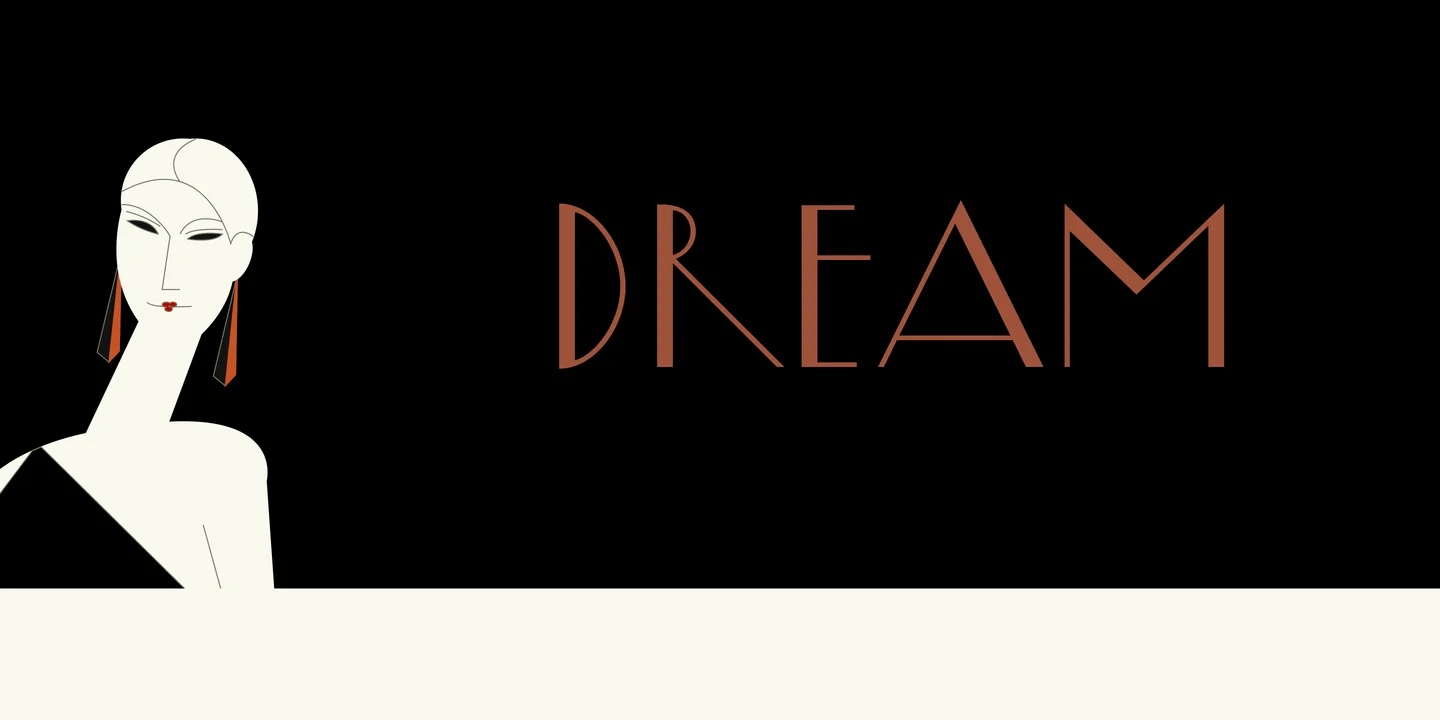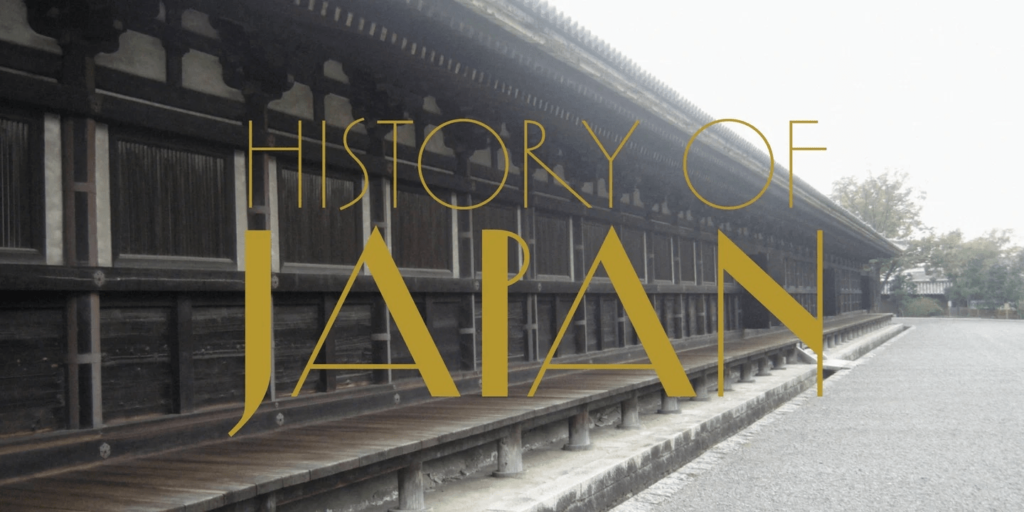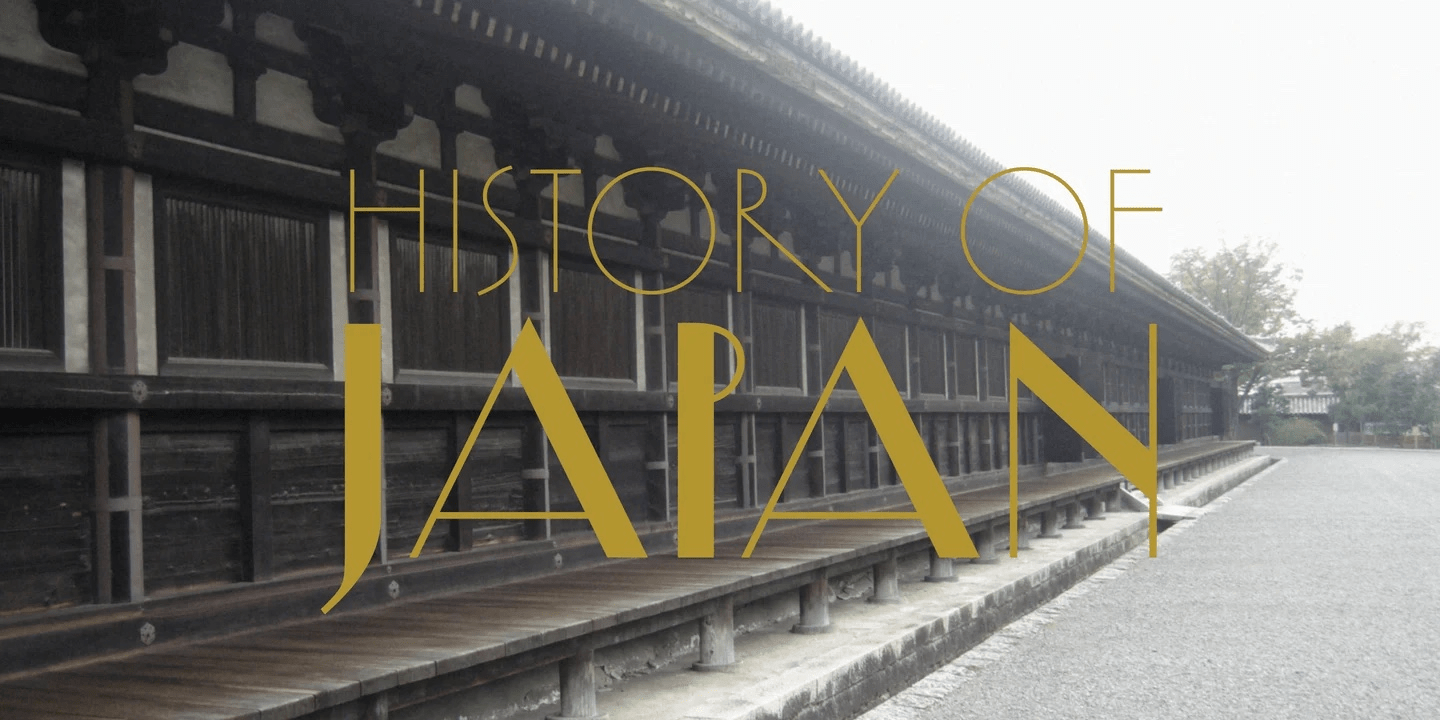
Yasashii
Yasashii is an art deco font based on Japanese designs for cosmetic packaging and posters used from the end of the 19th century to the early 20th.